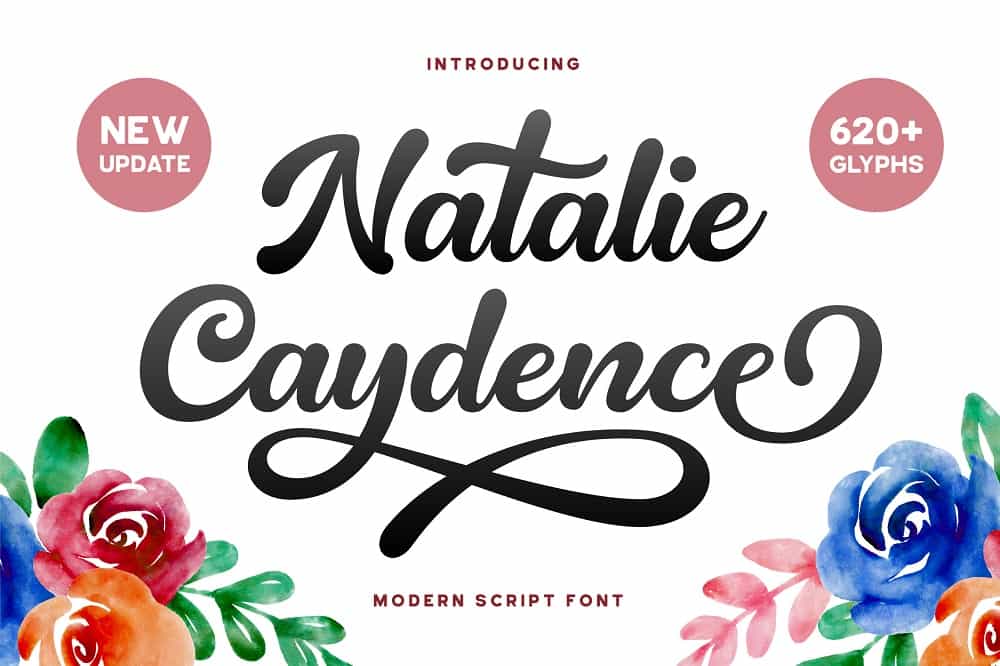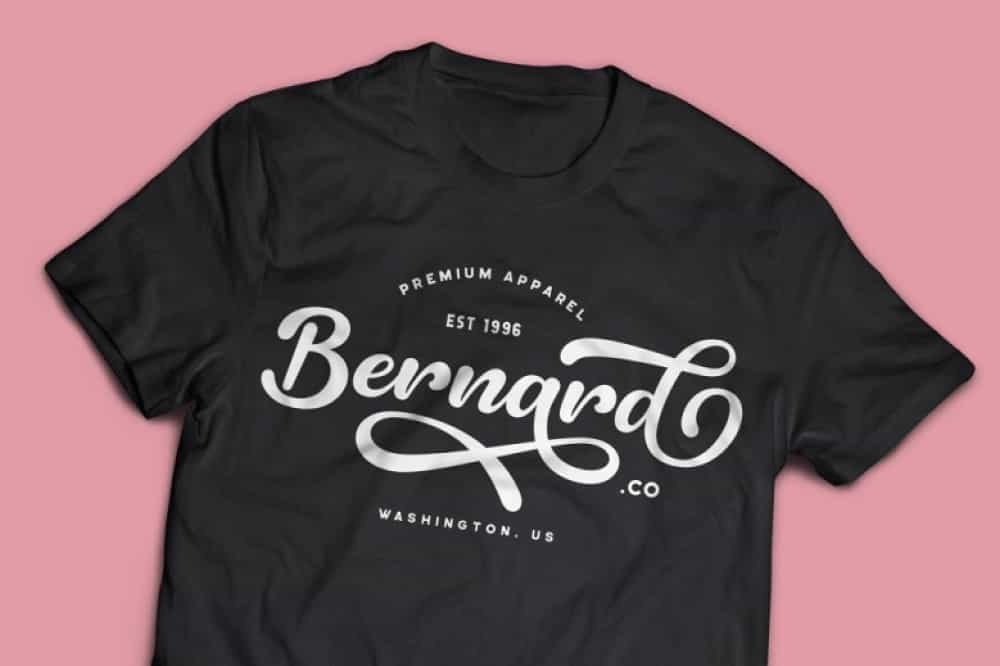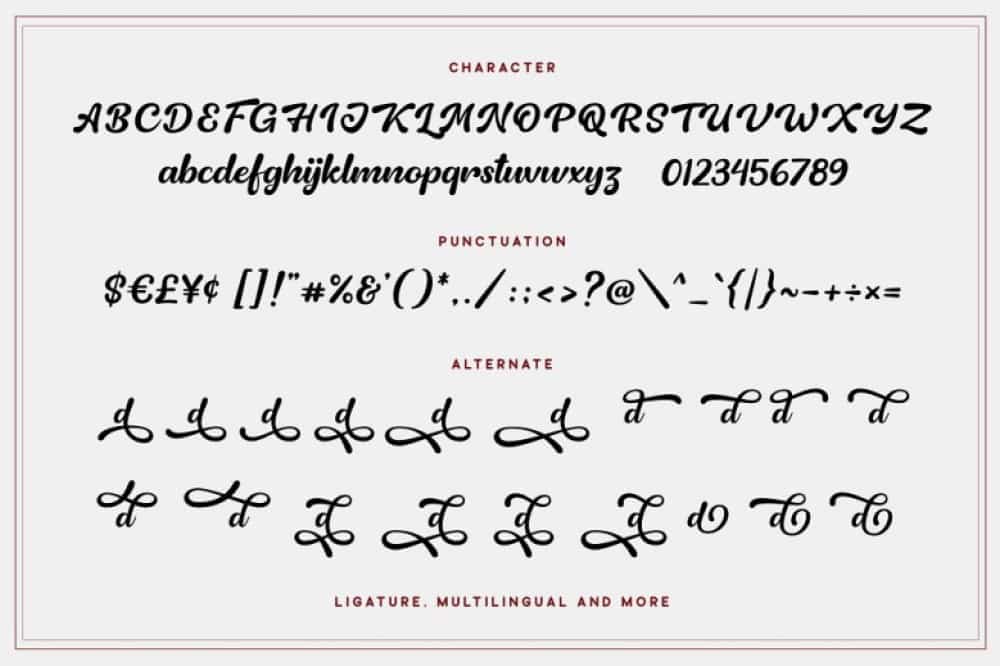
Natalie Caydence is an elegant bold calligraphy font with cursive script style. It is very beautiful to use in wedding invitations, thank you notes, quotes, cards, emblem, labels, and any other design that requires a cursive touch.